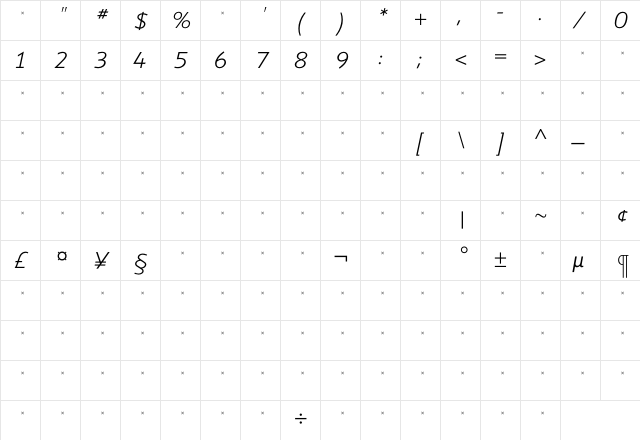
ShinnLightItalicTab is a composed and adaptable typeface that performs quietly and consistently across a wide range of design contexts. The slanted form adds forward momentum and visual energy. Its slender proportions lend an understated elegance to any composition.